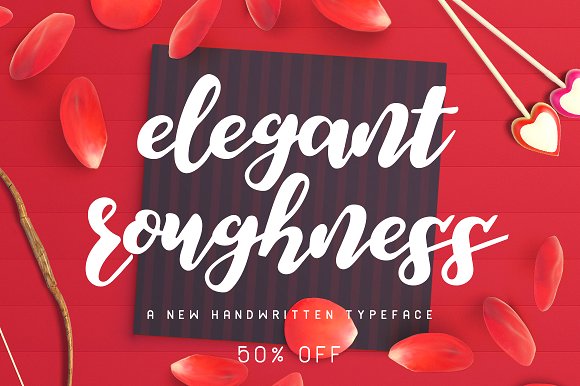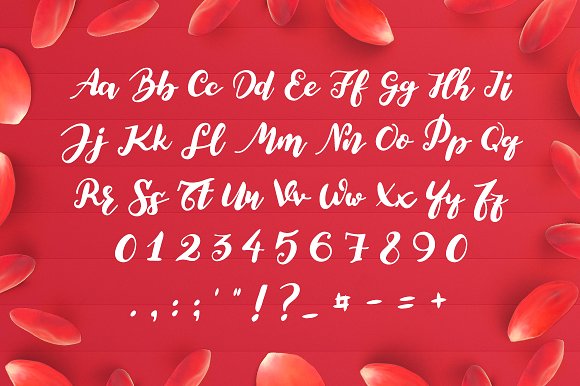
Elegant Roughness Font
Meet Elegant Roughness – a handwritten font with an elegant style and rough edges. It started as just a sketch on paper, updated and revised with patience and a pen, scanned, revised again and turned into a font.
Elegant Roughness combines the elegance of a script font with the roughness of a brush to create the feeling of an authentic font.
It can be easily used with mostly all types of projects, it can write your taglines, it can create great quotes and it can work alone to create a handwritten logo. The choices are endless, and it’s up to you to get creative with it!